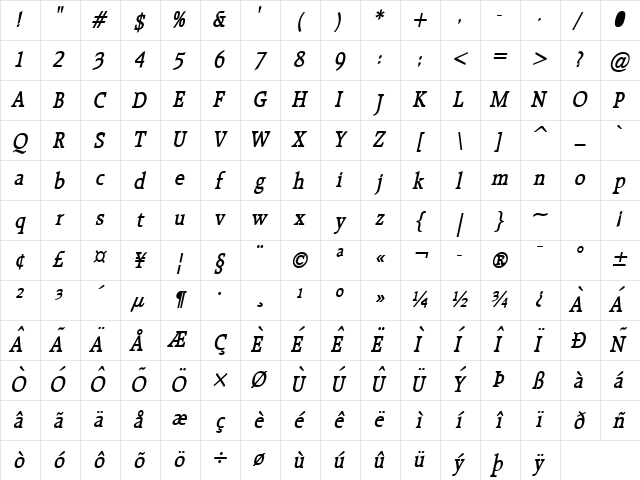
Rally BoldItalic
Design Context for Rally
Rally is a composed and adaptable typeface that performs quietly and consistently across a wide range of design contexts. The slanted form adds forward momentum and visual energy. Its bold stroke weight gives it real presence on the page.
Pro Tip: Use Rally for emphasis, pull quotes, and subheadings where its slanted energy can add rhythm to the layout.